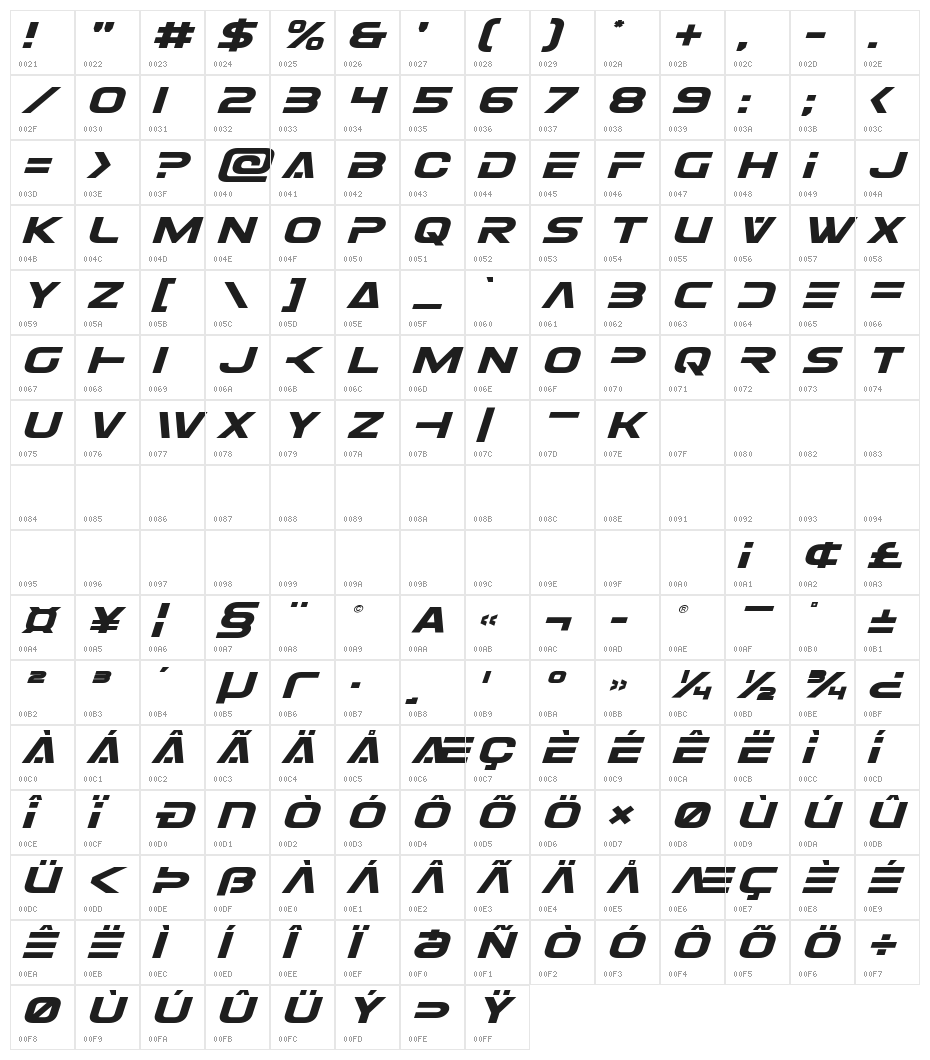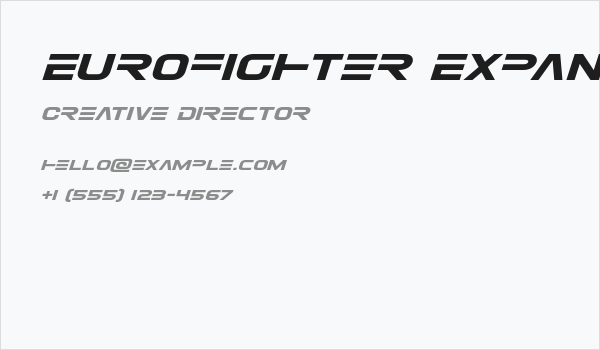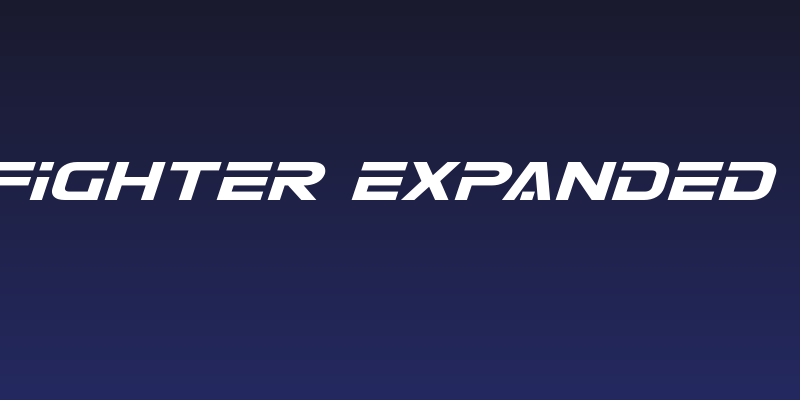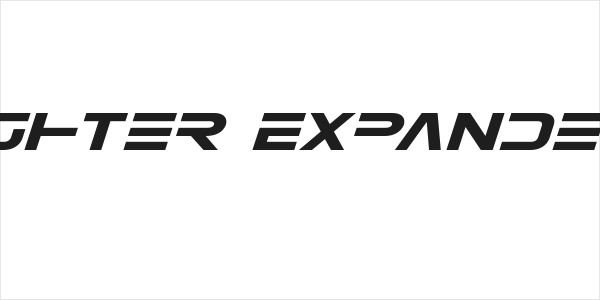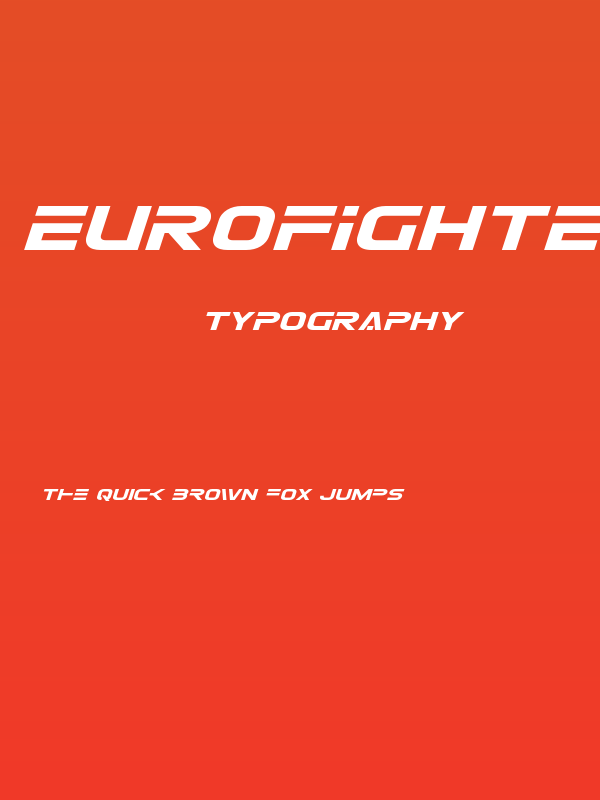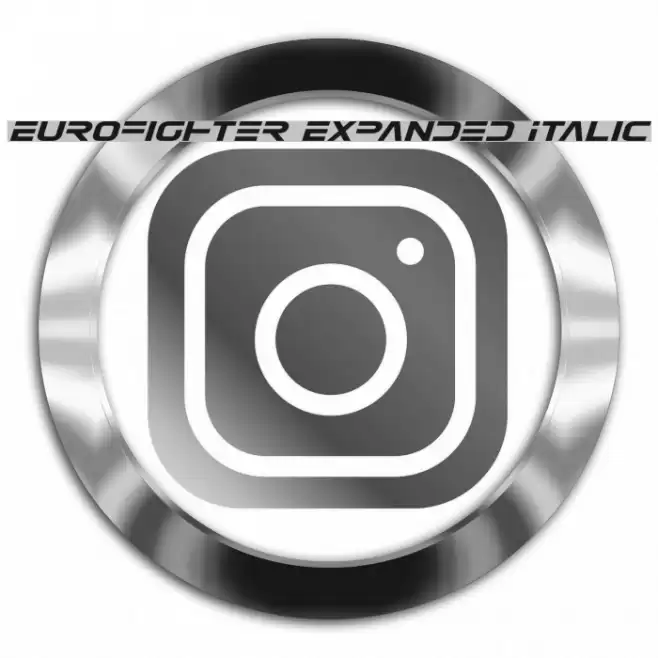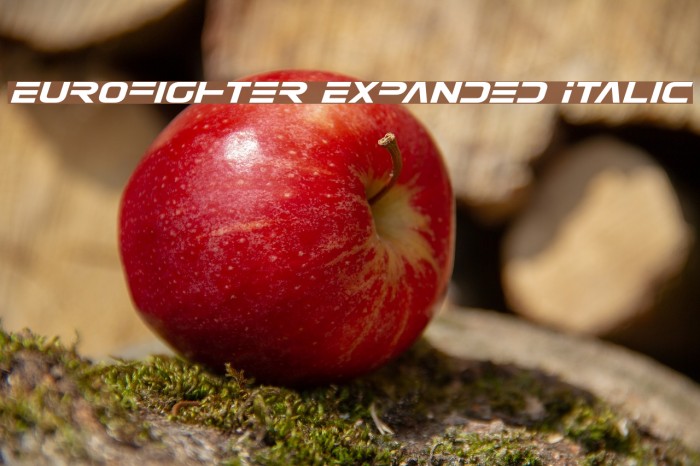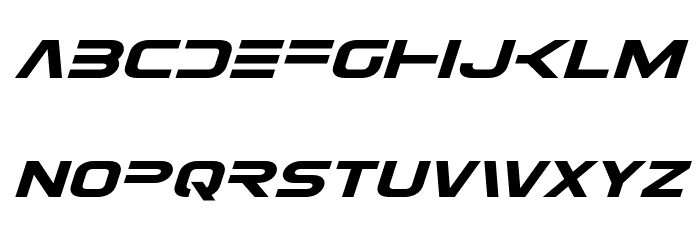
Eurofighter Expanded Italic Font
Eurofighter Expanded Italic Description
This font exhibits a dynamic and modern style with a distinctly italicized and expanded appearance. The characters are bold and angular, featuring sharp edges and a futuristic aesthetic. The uppercase letters are particularly striking, with a forward-leaning stance that suggests movement and speed. The lowercase letters maintain this dynamic quality, ensuring consistency across the typeface. Numbers and special characters are designed with the same attention to detail, making them suitable for a variety of applications. The overall design is sleek and contemporary, ideal for projects that require a bold and assertive visual impact.
| Proposed Projects | Ideal for branding, sports team logos, automotive designs, and technology-related projects. |